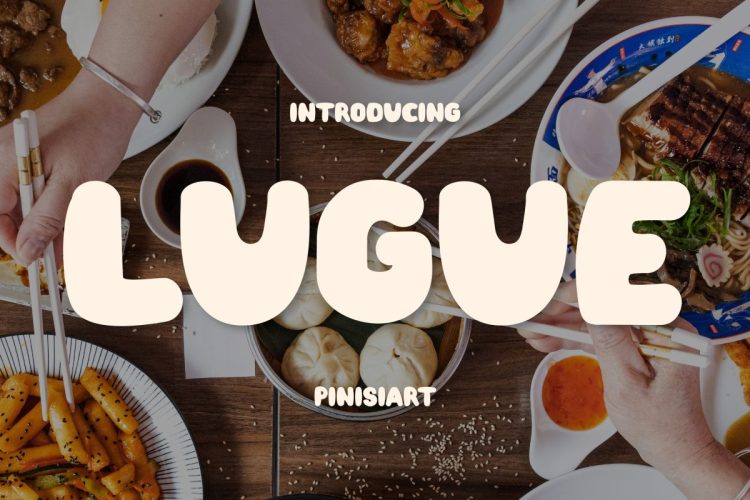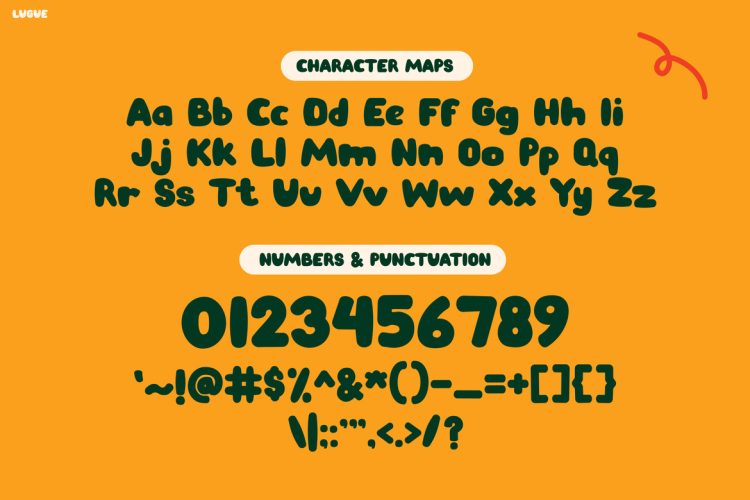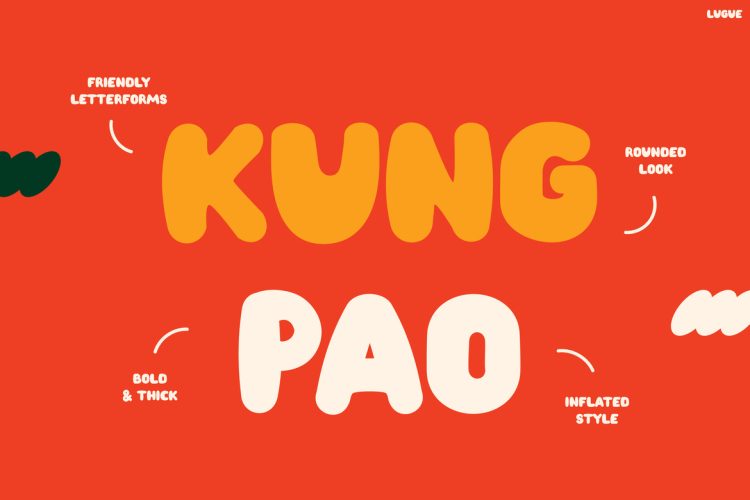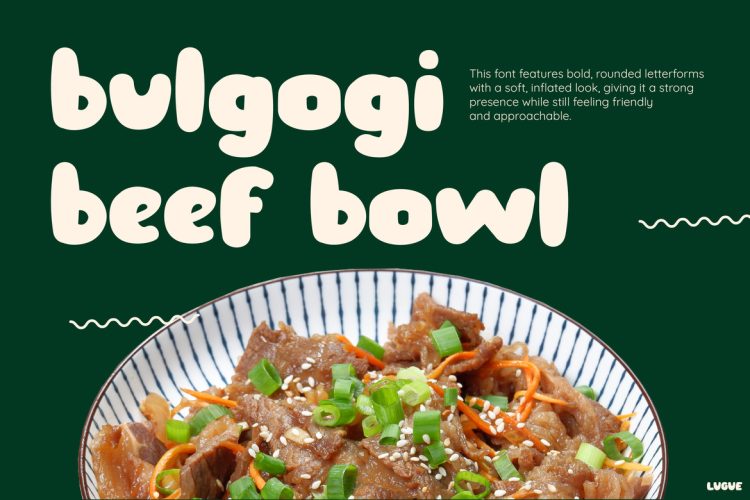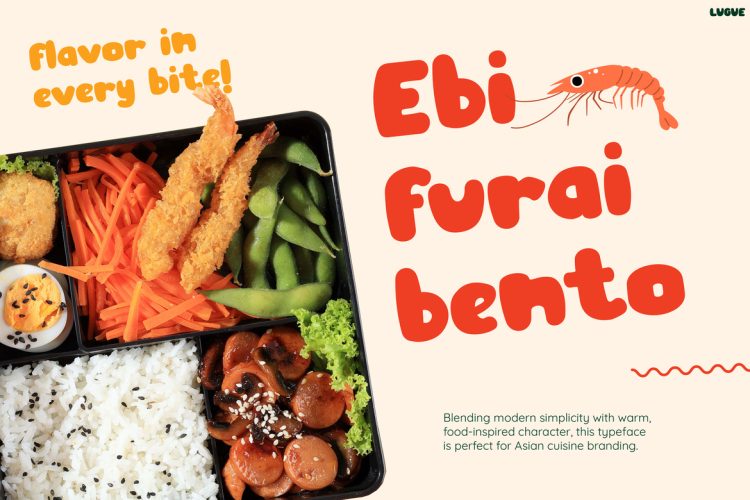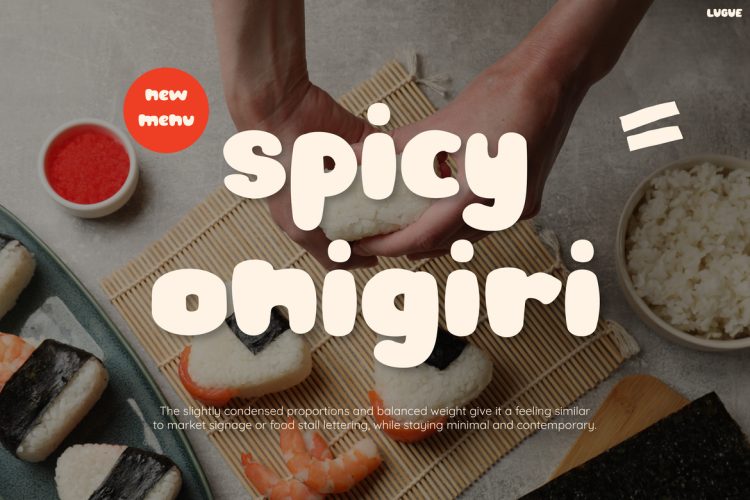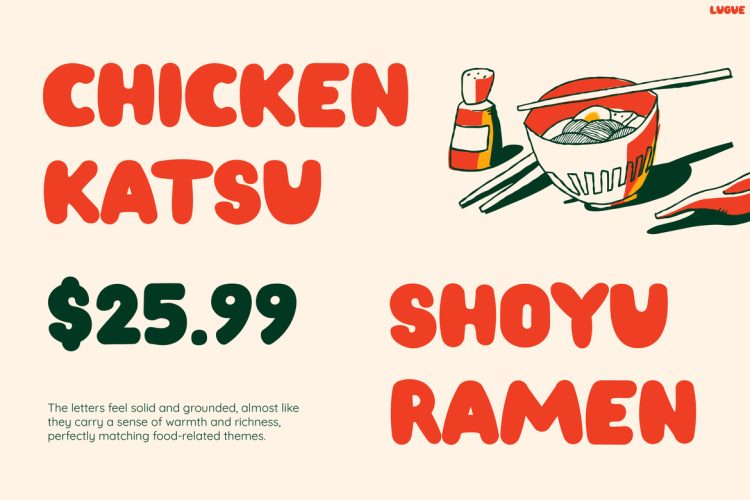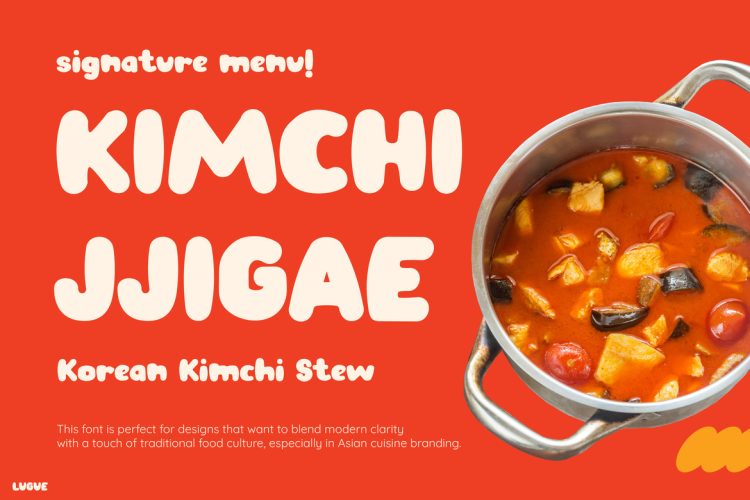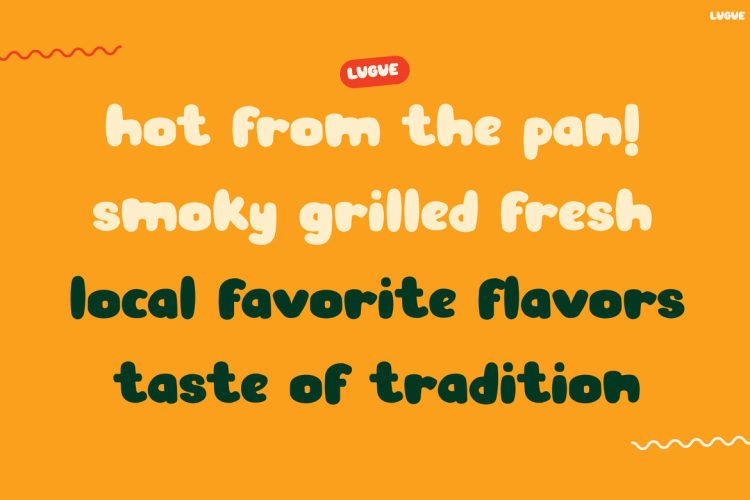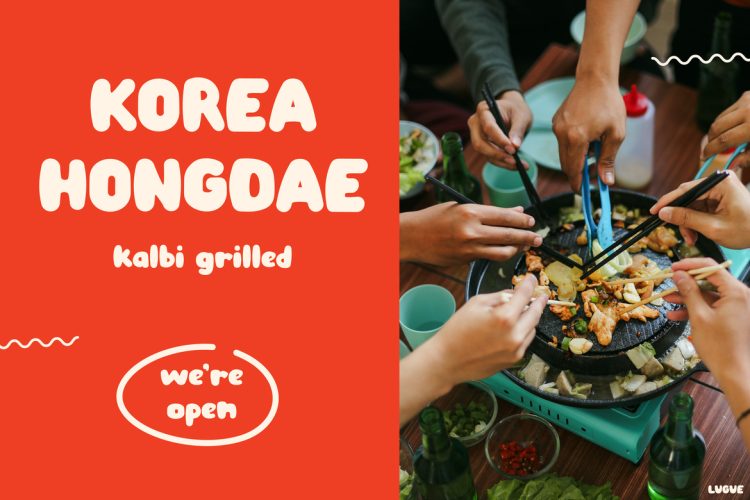
Lugue โ Playful Bold Font for Tasty Visual Stories
Kids Font Lugue stands out with chunky shapes and soft curves, making it instantly eye-catching. Moreover, it feels bold, friendly, and fun at the same time. In addition, its rounded style creates a warm and tasty vibe. Meanwhile, the slightly irregular forms add a handmade touch. As a result, every word looks lively and unique. Furthermore, it remains easy to read in large sizes. Therefore, it works well for menus, posters, and social media designs. Overall, it blends strong visuals with clear function.
Kids Font Lugue brings a playful mood into every design; furthermore, its bold strokes feel stable yet cheerful. In addition, the smooth edges keep the look clean and modern. Because of this, the font feels balanced and visually satisfying. Moreover, it pairs perfectly with bright colors and food images. At the same time, the character set supports flexible layouts. As a result, designers can create eye-catching headlines with ease. Not only that, but it also stays clear in busy compositions. Therefore, it delivers both charm and readability.
Kids Font Lugue is ideal for food branding and kids projects; moreover, it adapts easily to many creative needs. For example, it works well for menus, packaging, and posters. In addition, it suits cafรฉs, street food brands, and content creators. Meanwhile, designers who want a fun identity will find it very useful. Furthermore, it fits social media graphics and ads perfectly. Because of its friendly tone, it helps brands feel more inviting. Ultimately, it is a strong choice for bold and playful visuals.